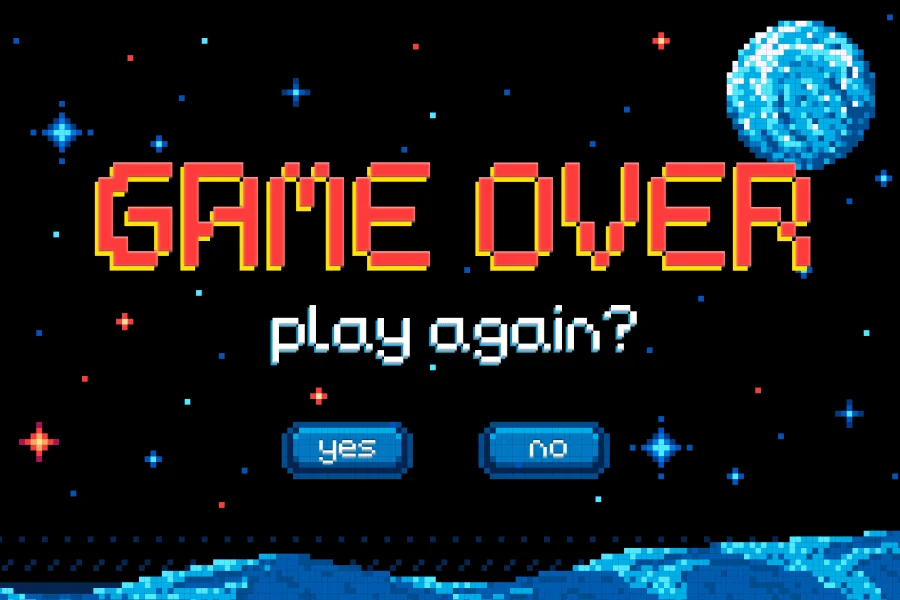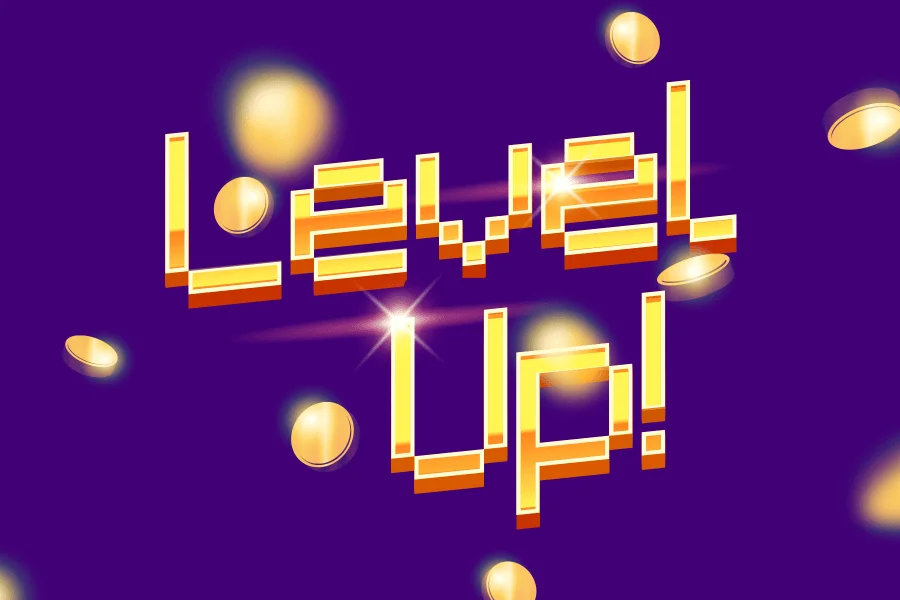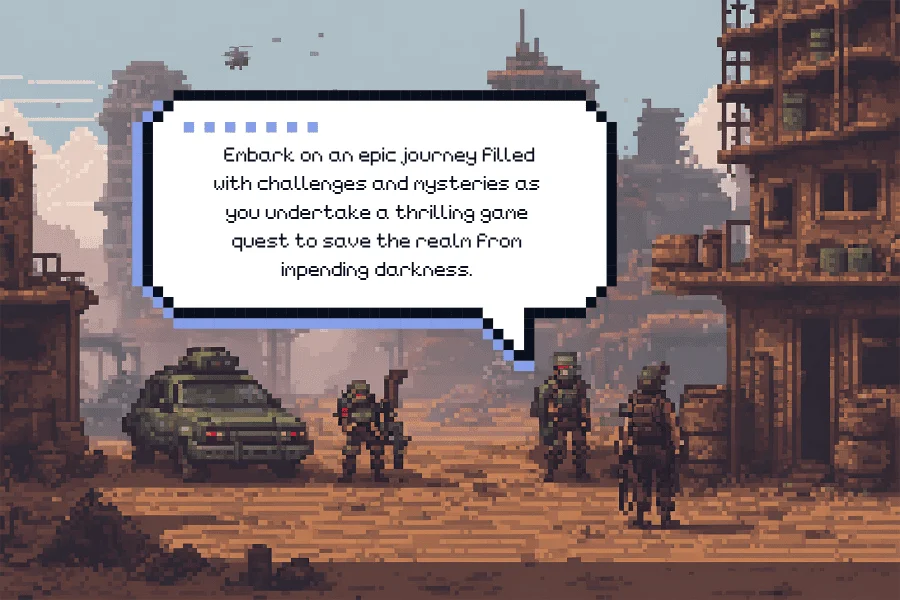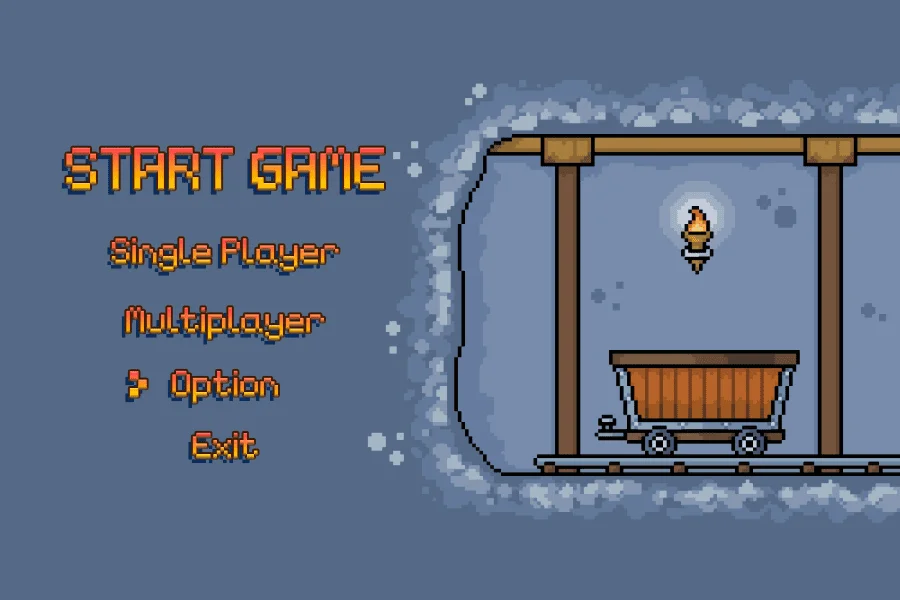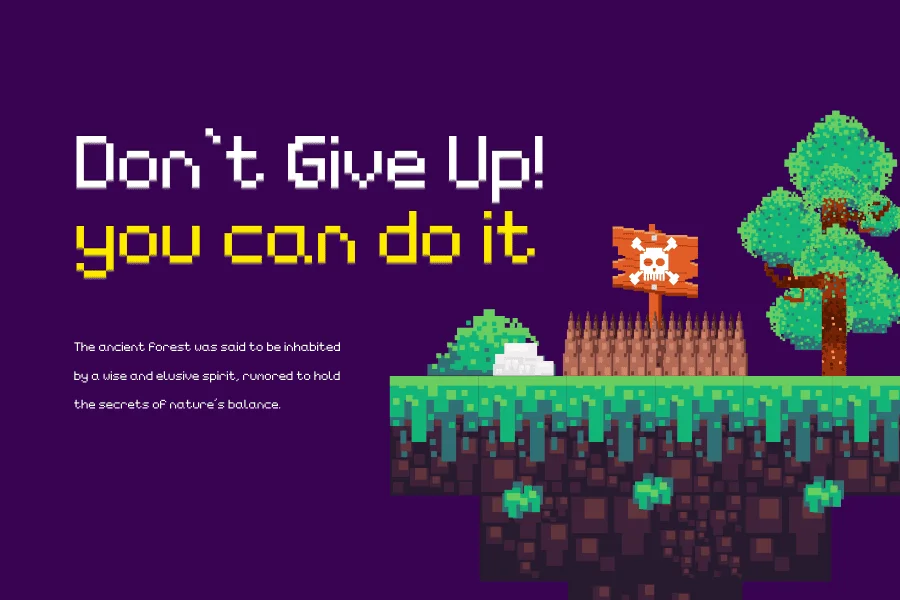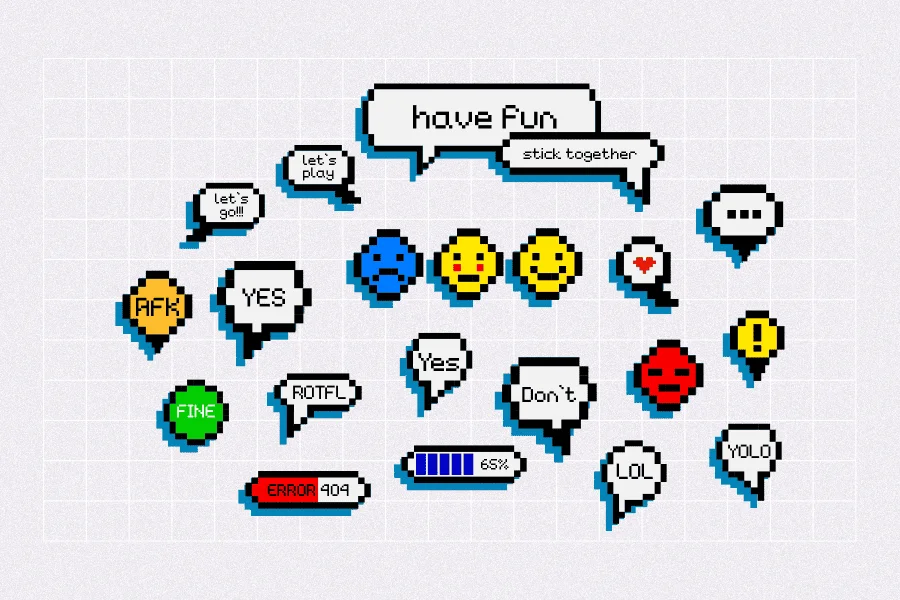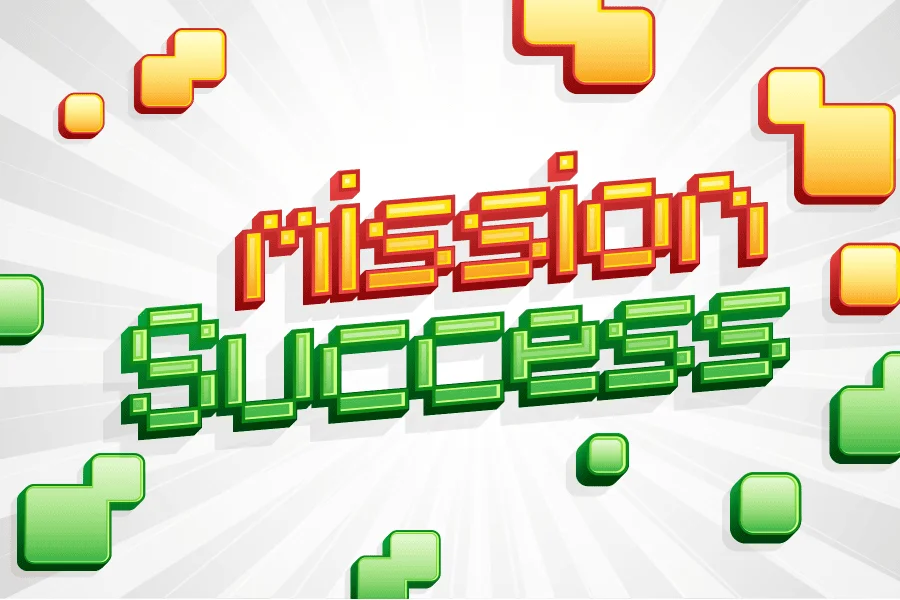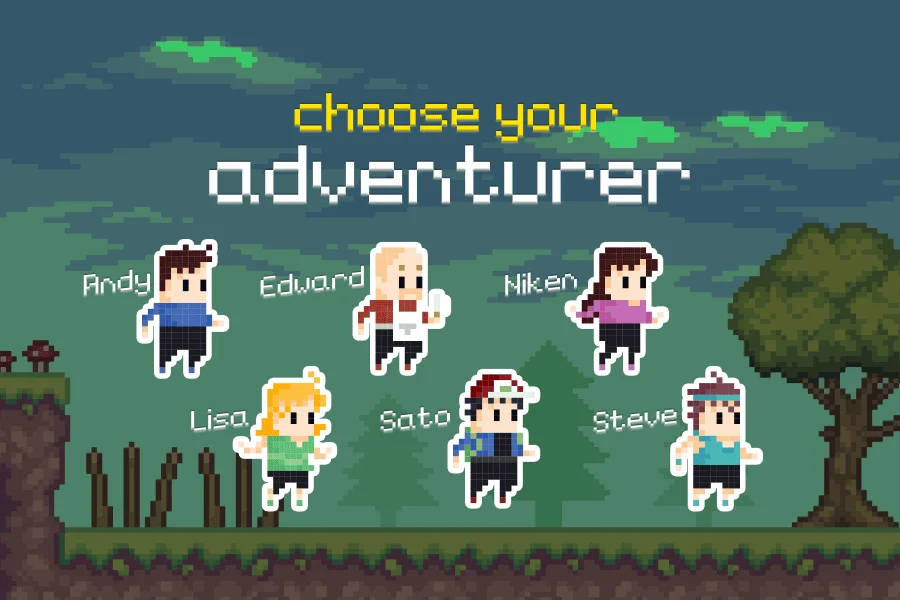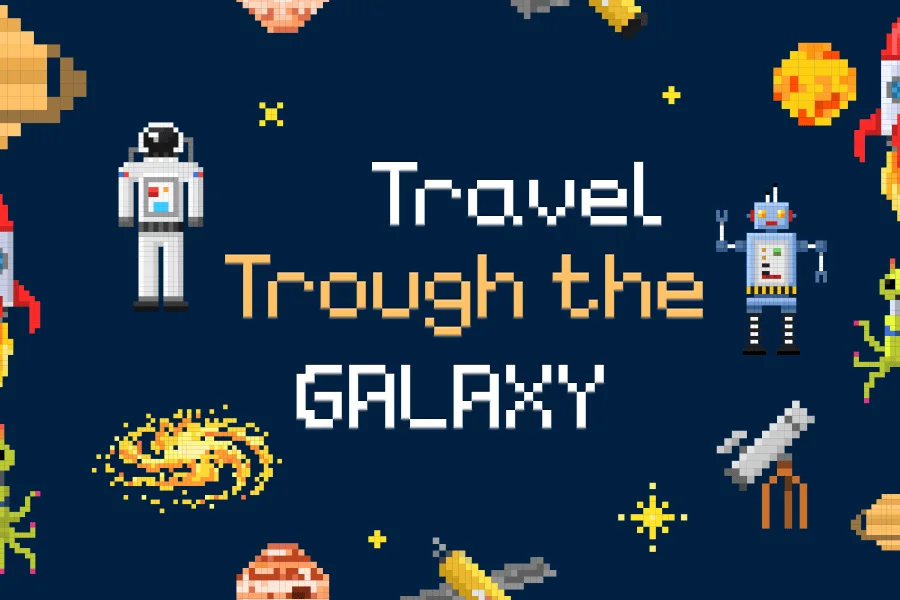
Lowres Pixel is an adorable and charming pixelate font that evokes a sense of playful nostalgia. Drawing inspiration from retro video games and pixel art, each letter in Lower Pixel is intricately crafted with pixelated precision.